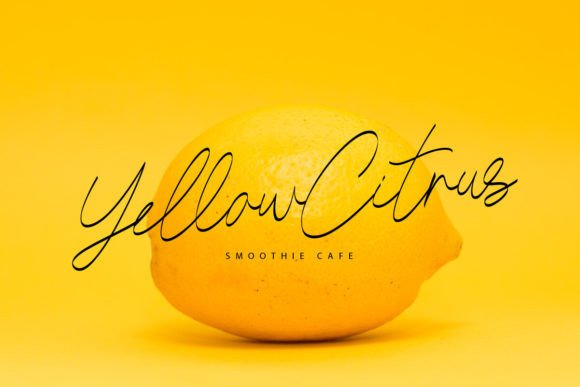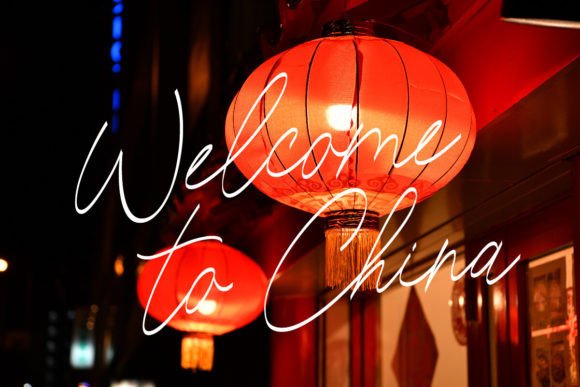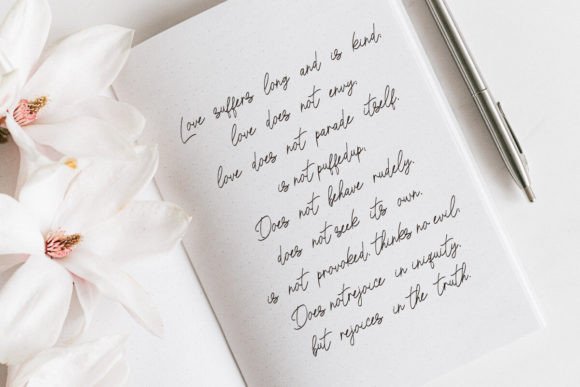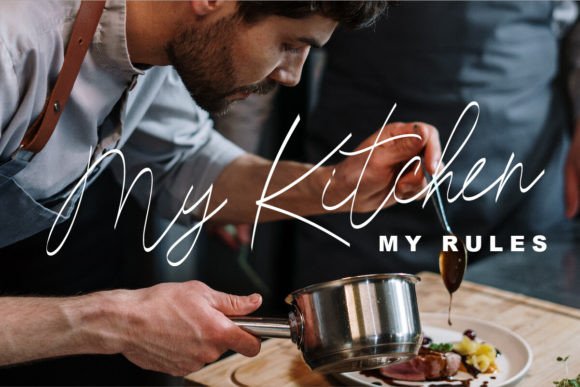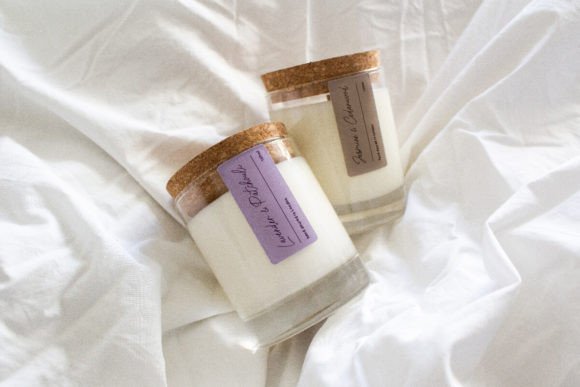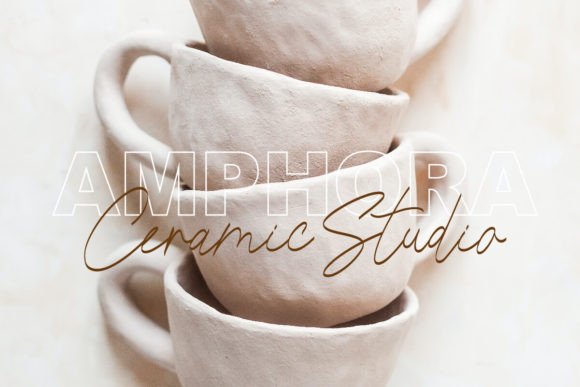
Introducing the Heart of Saint George Font: Elegance in Every Letter
The world of typography is vast and varied, offering countless options for designers and crafters looking to add a personal touch to their projects. Among these, the Heart of Saint George font stands out as a beacon of elegance and versatility. This beautifully crafted, handwritten calligraphic font is not just a tool for writing; it’s an art form that can elevate any design project from ordinary to extraordinary.
The Essence of Heart of Saint George Font
Heart of Saint George is more than just a font; it’s a statement of sophistication and style. This elegant handwritten calligraphic font comes equipped with a comprehensive set of characters, including uppercase and lowercase letters, punctuation marks, numbers, and Cyrillic characters. Additionally, it features ligatures and offers multilingual support, making it incredibly versatile for a wide range of design needs.
Key Features of Heart of Saint George Font
- Comprehensive Character Set: Includes uppercase and lowercase characters to ensure your text looks cohesive and stylish.
- Punctuation Marks and Numbers: Complete with a set of punctuation marks and numbers, ensuring that your designs are not only beautiful but also fully functional.
- Cyrillic Characters: Catering to a broader audience, the inclusion of Cyrillic characters makes this font suitable for projects targeting Russian-speaking or other Cyrillic-based languages.
- Ligatures: Adding an extra layer of elegance, ligatures help in creating a more natural flow of text.
- Multilingual Support: With support for multiple languages, Heart of Saint George font is perfect for global brands or personal projects with an international audience.
Applications of Heart of Saint George Font
The versatility of the Heart of Saint George font makes it suitable for a myriad of design projects. Here are some of the most popular applications:
- Logos: Create a memorable brand logo that exudes elegance and professionalism.
- Quotes and Posters: Add a touch of class to inspirational quotes and posters.
- Branding Projects: Consistency in branding is key, and this font helps in maintaining an elegant theme across all your branding materials.
- Product Packaging: Stand out on the shelves with beautifully designed packaging.
- T-Shirts and Merchandise: Elevate your apparel and merchandise designs with a stylish and readable font.
- Book Covers: Attract readers with a captivating book cover that showcases your story’s essence.
- Greeting Cards: Add a personal touch to your greeting cards, making them more heartfelt and special.
- Graphic Design: Applicable in virtually any graphic design project where elegance and readability are paramount.
Why Choose Heart of Saint George Font?
In a sea of fonts, Heart of Saint George stands out for its unique blend of elegance, versatility, and practicality. Here are a few reasons why designers and crafters prefer this font:
- Unique Aesthetic: Offers a distinct look that can set your project apart from others.
- High Readability: Despite its elegant nature, the font maintains high readability, making it suitable for both headings and body text.
- Time-Saving: With its comprehensive feature set, you can work on a variety of projects without needing additional fonts.
- Support for Creative Projects: Ideal for both digital and print projects, offering flexibility in its applications.
| Author | ChekArt |
Heart of Saint George font is a valuable addition to any designer’s toolkit. Its elegant appearance, combined with its extensive feature set, makes it the perfect choice for a wide range of projects. Whether you’re working on a logo, a book cover, or a branding project, this font can help you achieve that extra level of sophistication and professionalism. With its multilingual support and comprehensive character set, Heart of Saint George is not just a font; it’s a creative partner that can help bring your vision to life.